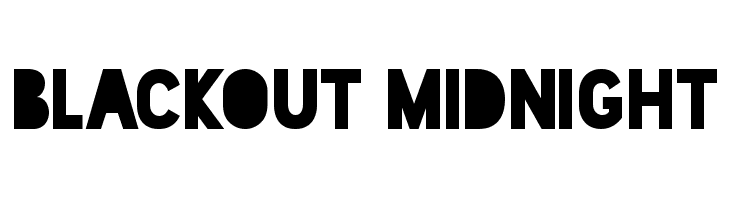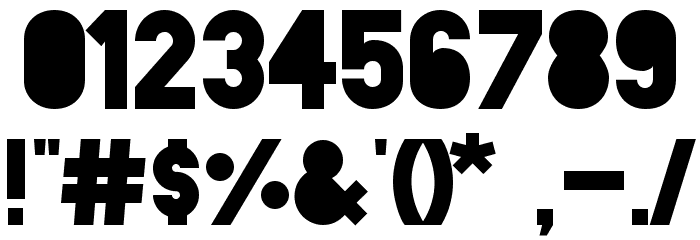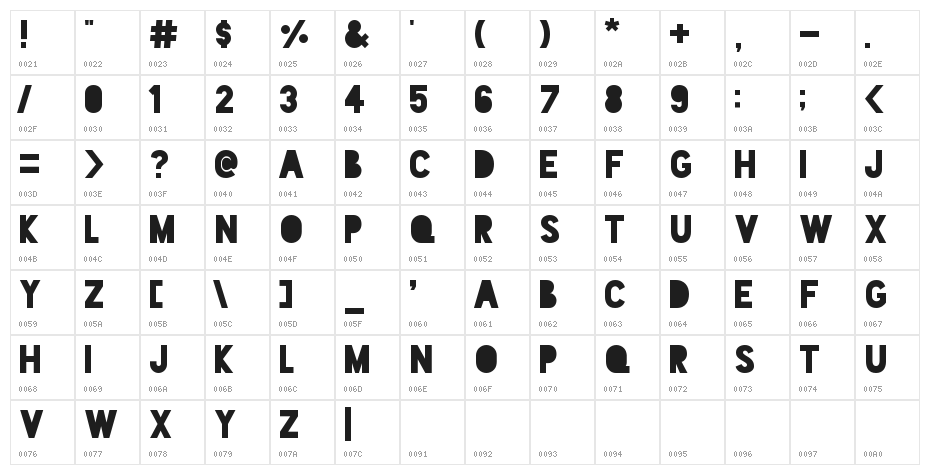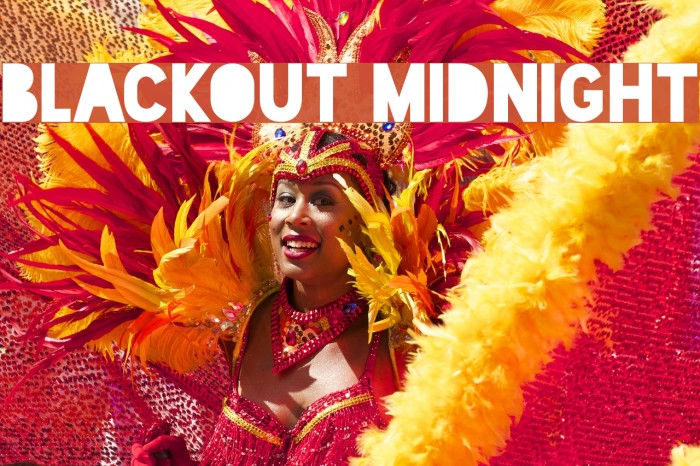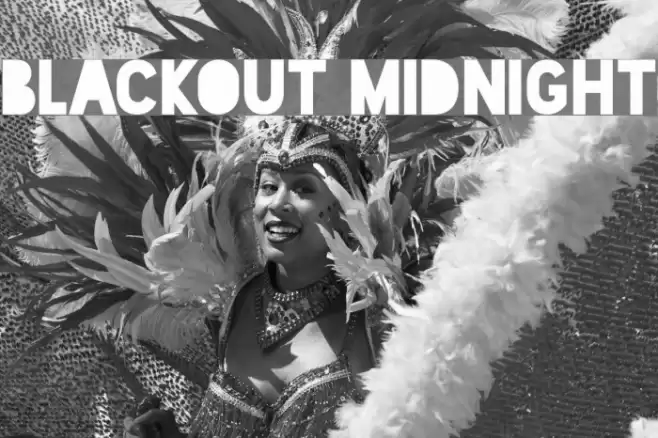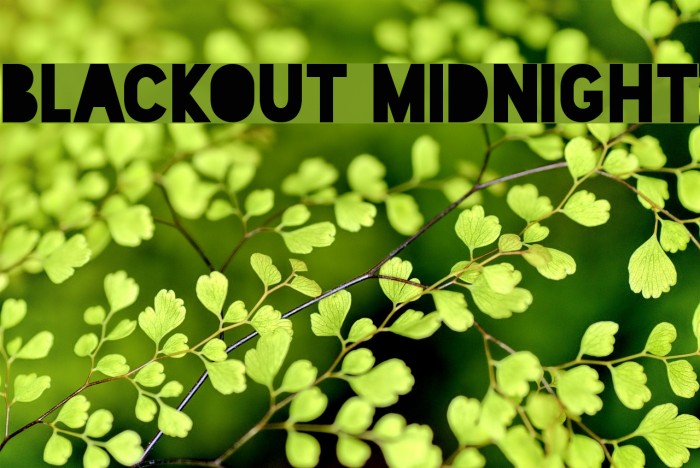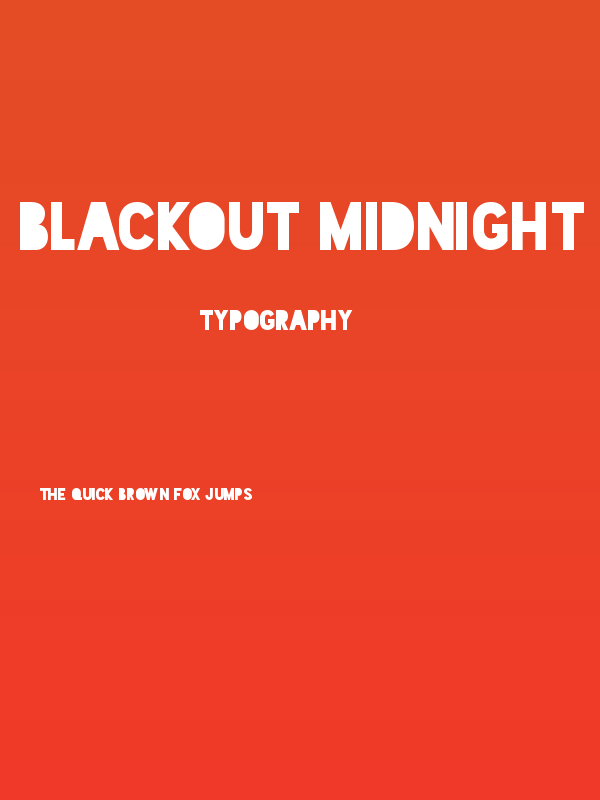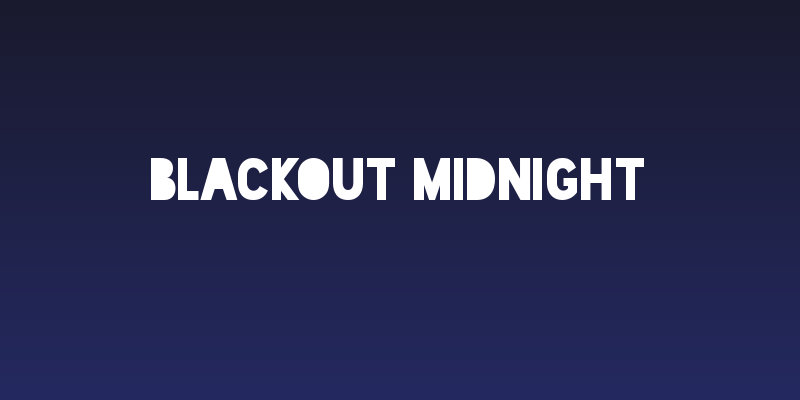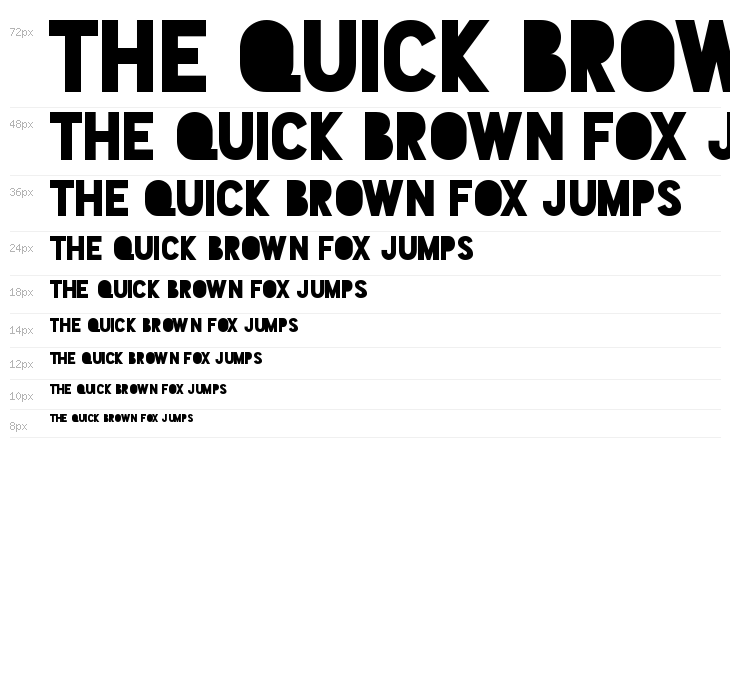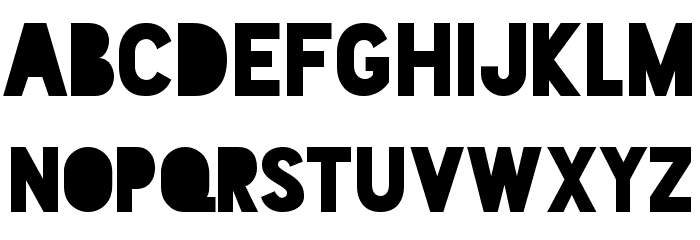
Blackout Midnight Font
Blackout Midnight Description
This font is a bold, impactful typeface characterized by its thick, uniform strokes and geometric shapes. The letters are constructed with a strong emphasis on straight lines and sharp angles, giving it a modern and assertive appearance. The uppercase and lowercase letters maintain a consistent weight, contributing to a cohesive and powerful visual presence. The numbers and special characters are designed with the same boldness, ensuring uniformity across all elements. This font's heavy weight and solid structure make it ideal for grabbing attention and making a statement.
| Proposed Projects | Ideal for posters, headlines, branding, and any project requiring a strong visual impact. |